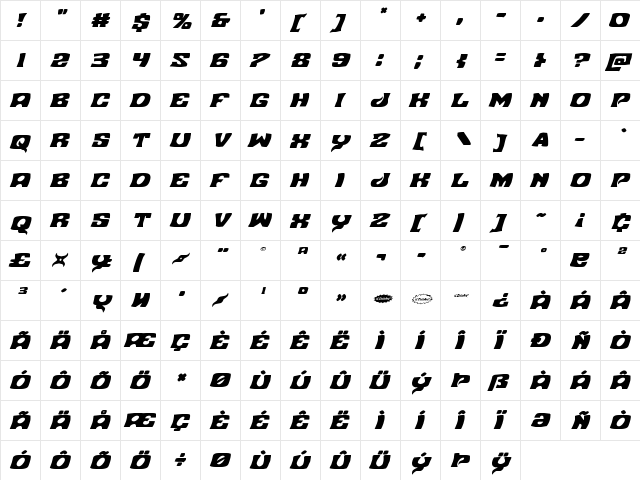
Nuevo Passion Italic Italic
Design Context for Nuevo Passion Italic Typeface
Nuevo Passion Italic is a composed and adaptable typeface that performs quietly and consistently across a wide range of design contexts. The dynamic lean of this cut emphasises speed and emphasis in any layout.
Pro Tip: Use Nuevo Passion Italic for emphasis, pull quotes, and subheadings where its slanted energy can add rhythm to the layout.